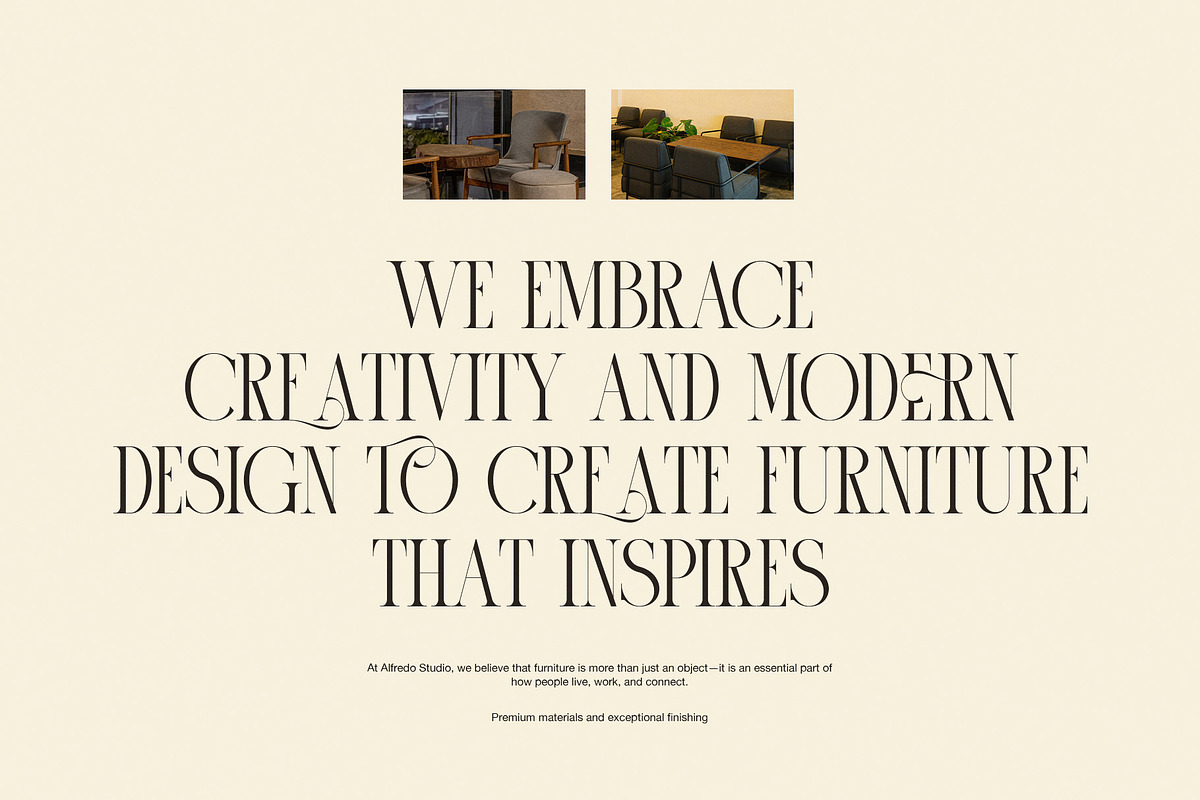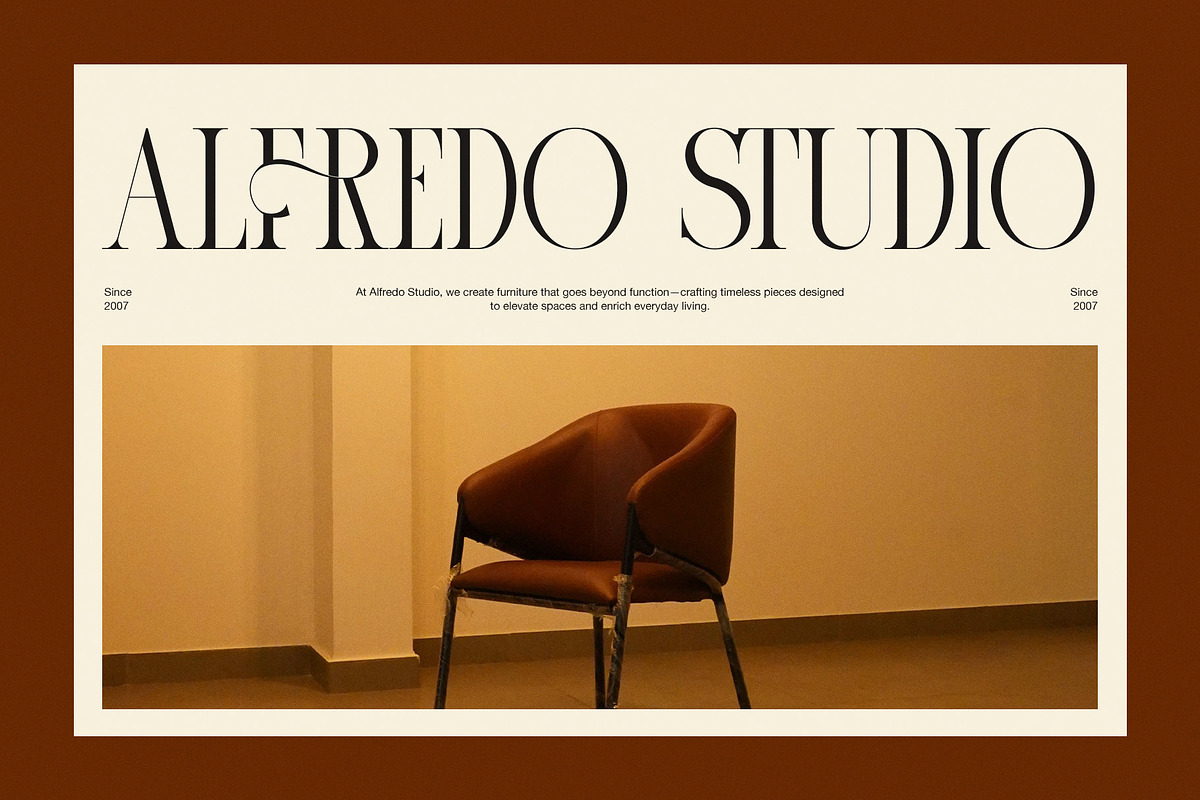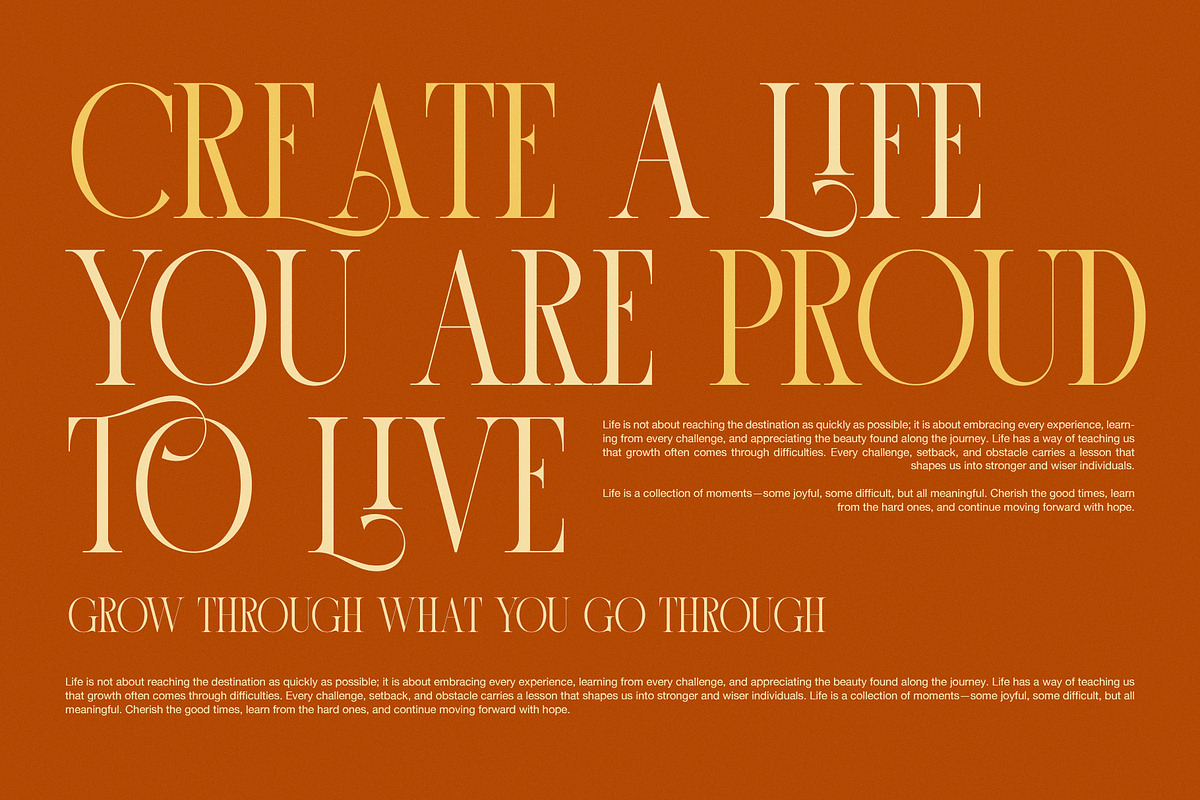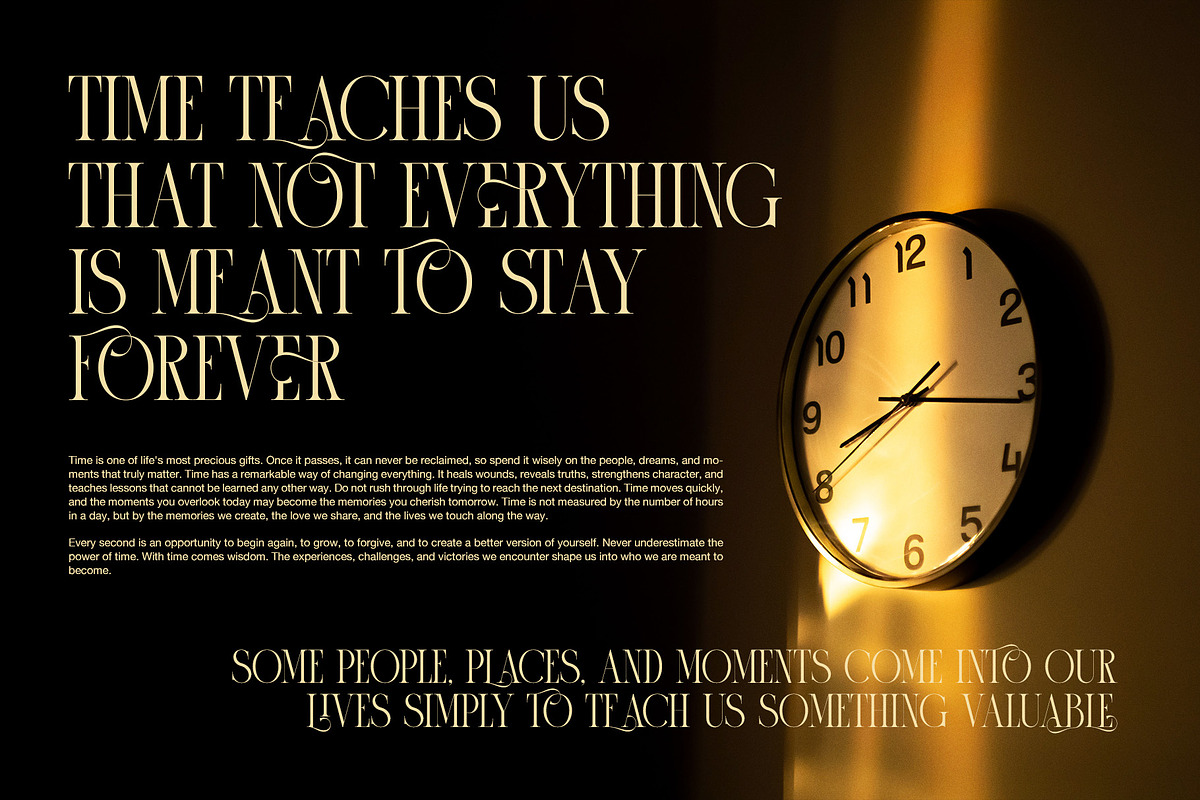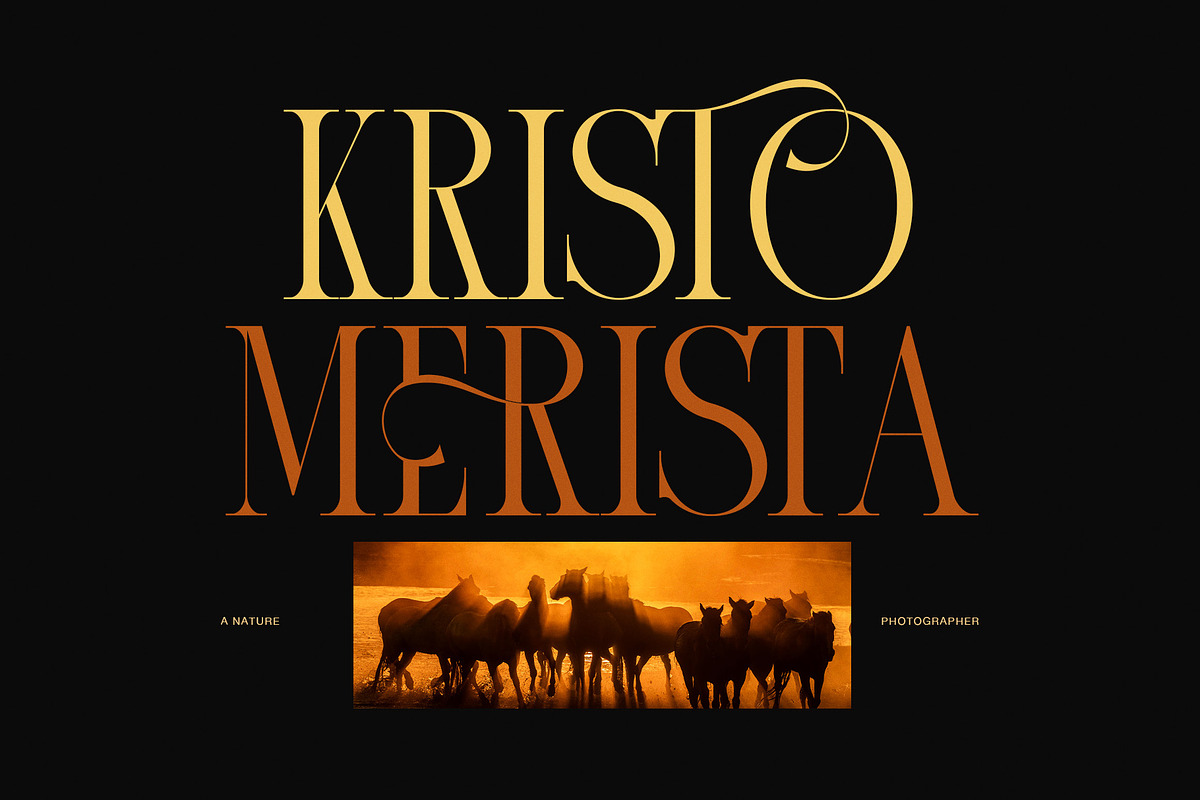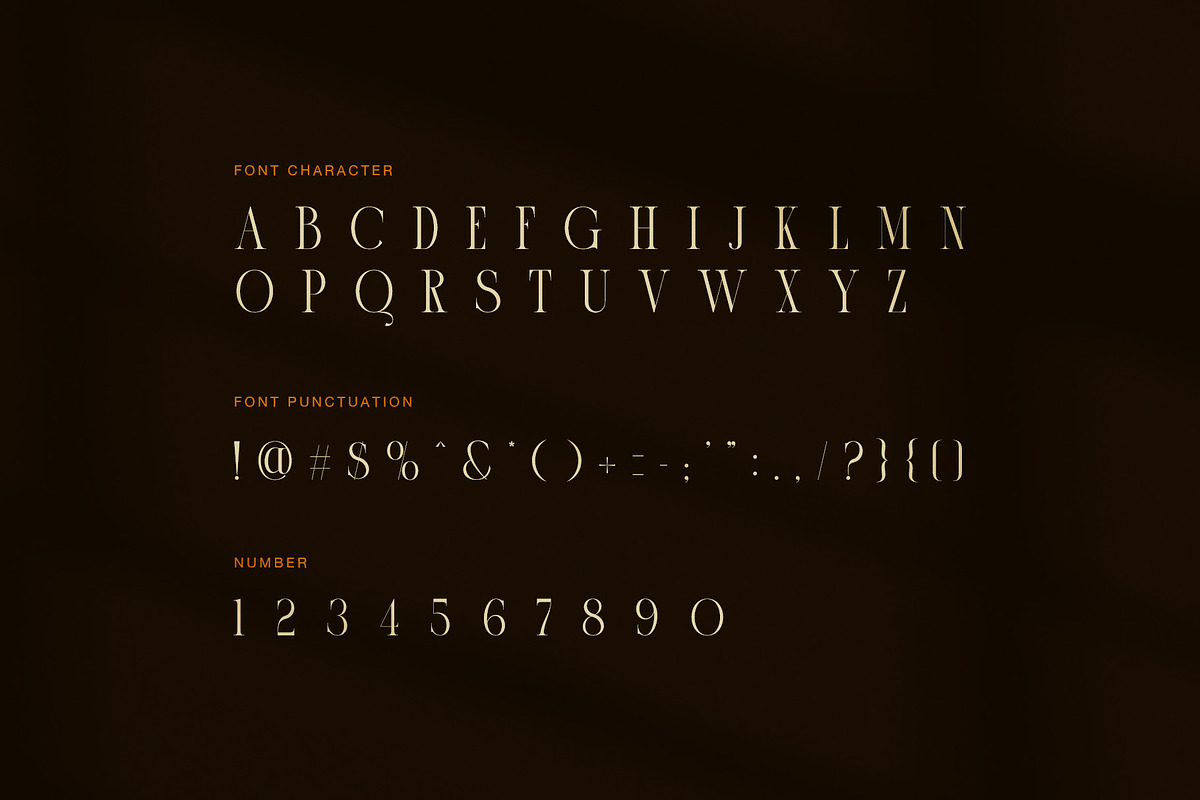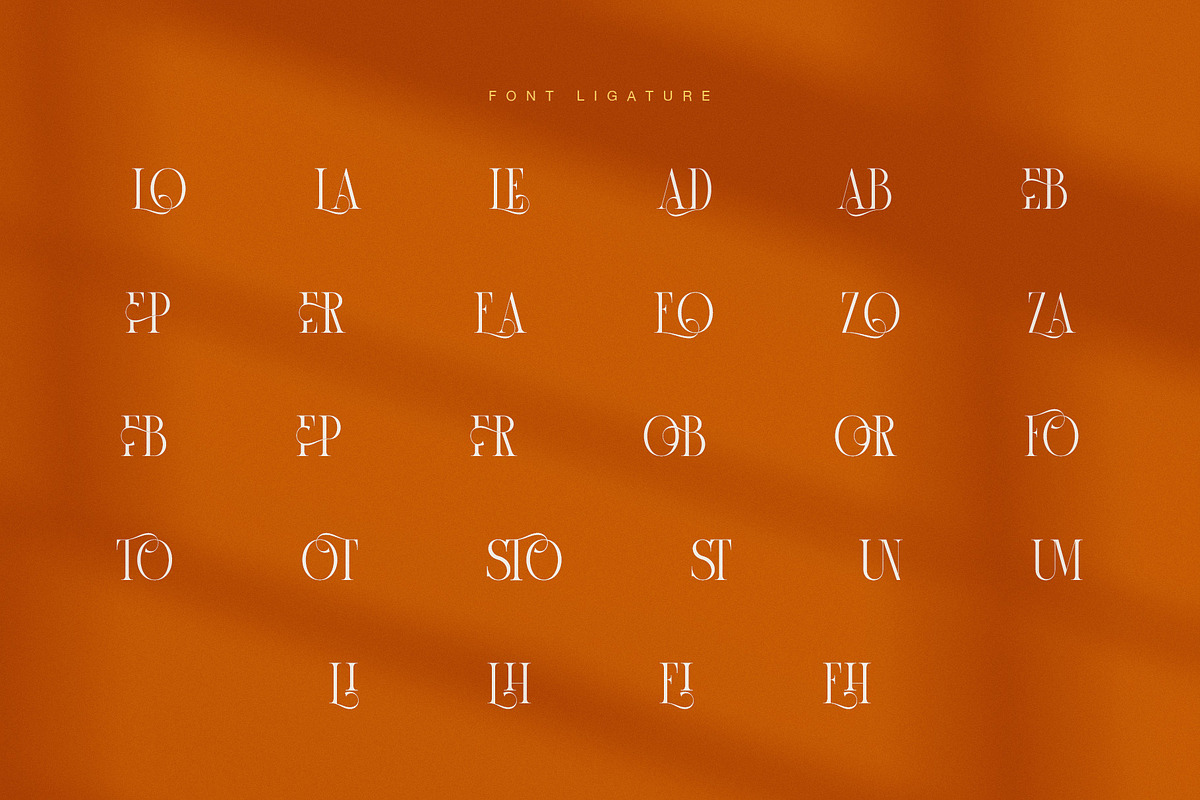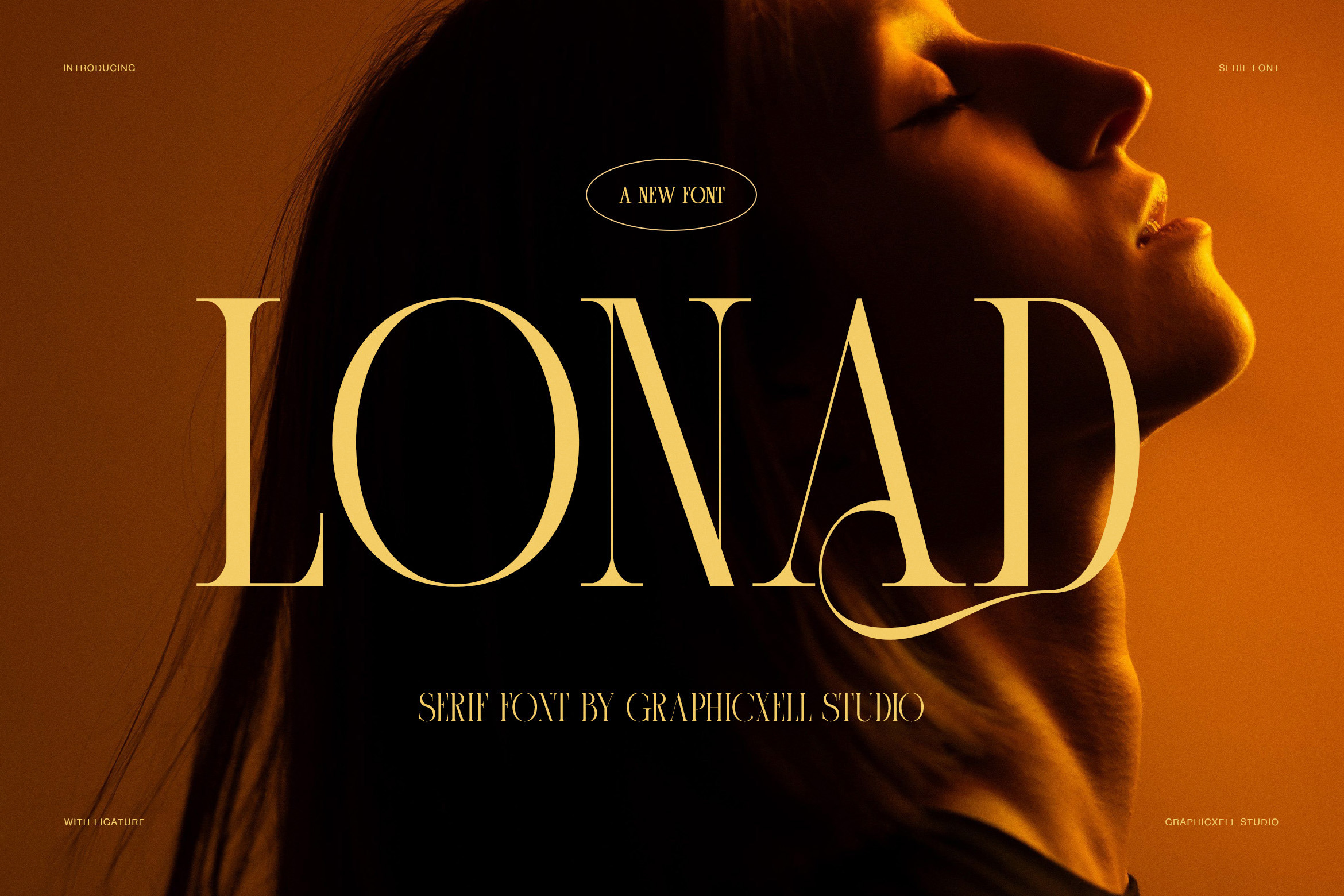
Lonad Elegant Serif Display Font
Lonad is a luxury serif display font designed for modern elegance and high-end visual storytelling. Moreover, it blends sharp contrast strokes with soft curves, creating a refined and dramatic look. As a result, it works perfectly for fashion branding, editorial layouts, and cinematic titles. In addition, its letterforms feel bold yet graceful, giving strong visual impact while staying readable.
Furthermore, Lonad takes inspiration from classic Didone typography while adding a modern twist. The thin hairlines and strong vertical contrast create a premium aesthetic. Meanwhile, stylish alternates and ligatures give designers creative freedom. Therefore, each word can feel unique and expressive. Additionally, the font carries a warm cinematic mood, especially suitable for luxury posters and magazine covers.
Moreover, Lonad is highly versatile in use. It fits perfectly for branding projects, logo design, wedding invitations, beauty products, and high-fashion campaigns. However, it also performs well in digital content such as social media posts and YouTube thumbnails. As a result, designers can maintain consistency across multiple platforms. In addition, its elegant structure enhances storytelling in both short and long text compositions.
High contrast serif design
Elegant ligatures and alternates
Fashion editorial style
Luxury branding aesthetic
Cinematic typography feel
Furthermore, Lonad is not just a font but a visual identity tool. Therefore, it helps brands communicate elegance, emotion, and premium quality. Overall, it delivers timeless beauty for modern design needs. Meanwhile, its refined spacing ensures clarity in both large headlines and smaller text layouts. In addition, it adapts easily to minimalist and expressive design styles, making it a strong choice for professional creatives.
As a result, Lonad becomes an ideal solution for designers seeking sophistication and impact. Moreover, it elevates any visual project with a strong luxury presence. Therefore, whether used in print or digital media, it consistently delivers a high-end aesthetic that feels timeless and stylish.